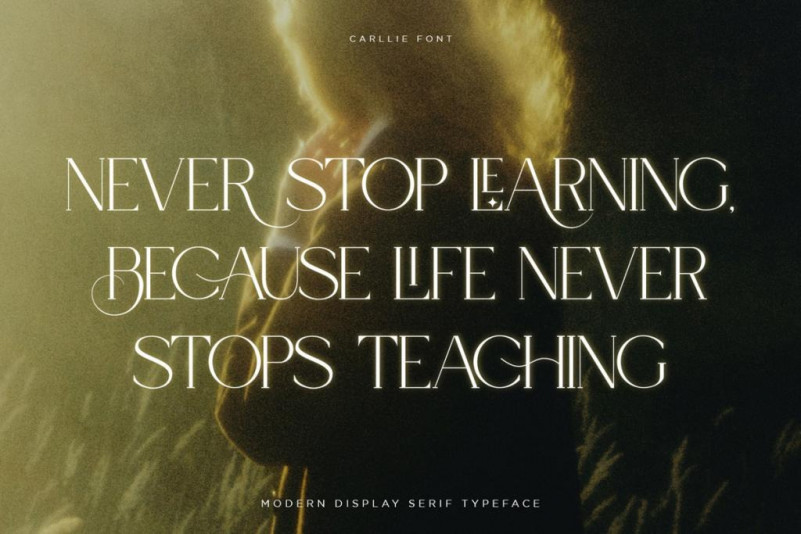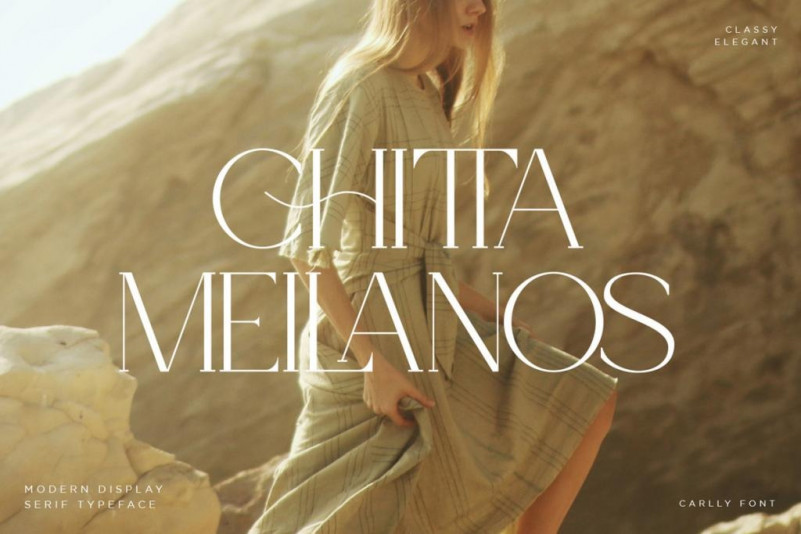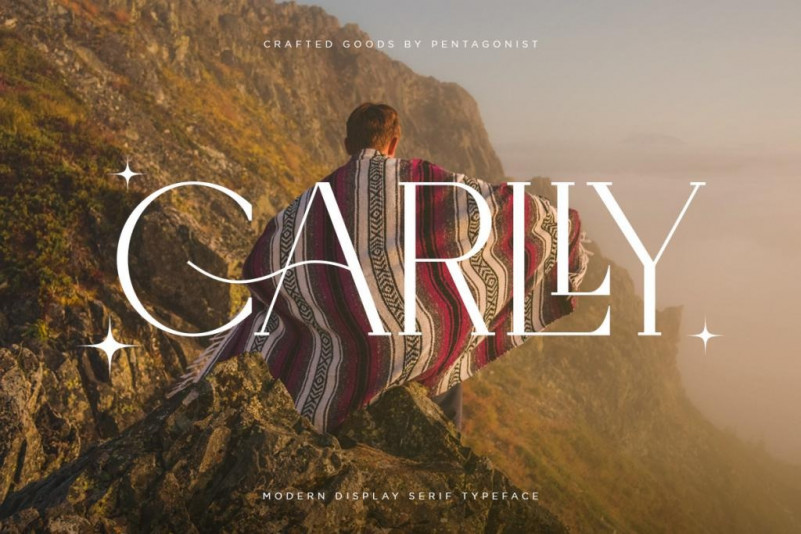
Carlly Font
Carlly Serif Font Is A Classic Serif Fonts Inspired By Modern and Ligature Characters. Perfect for branding projects, Logo design, Clothing Branding, product packaging, magazine headers, or simply as a stylish text overlay to any background image.